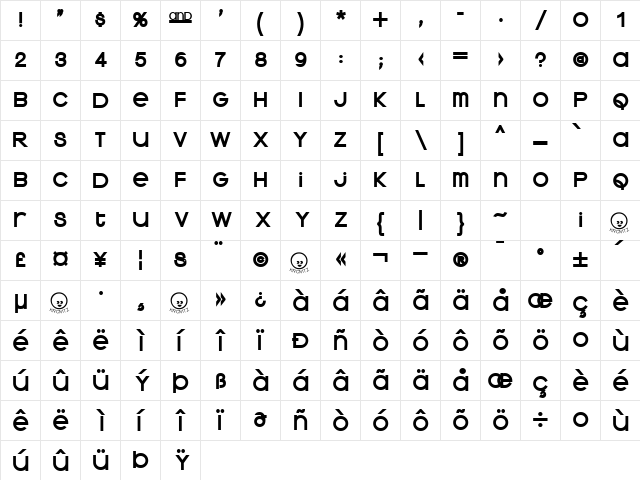
Kravitz Extra Thermal Regular Font Preview
Kravitz Extra Thermal Regular
Kravitz Extra Thermal Regular Font Details
Design Context for Kravitz Extra Thermal Typeface
Kravitz Extra Thermal is a composed and adaptable typeface that performs quietly and consistently across a wide range of design contexts.